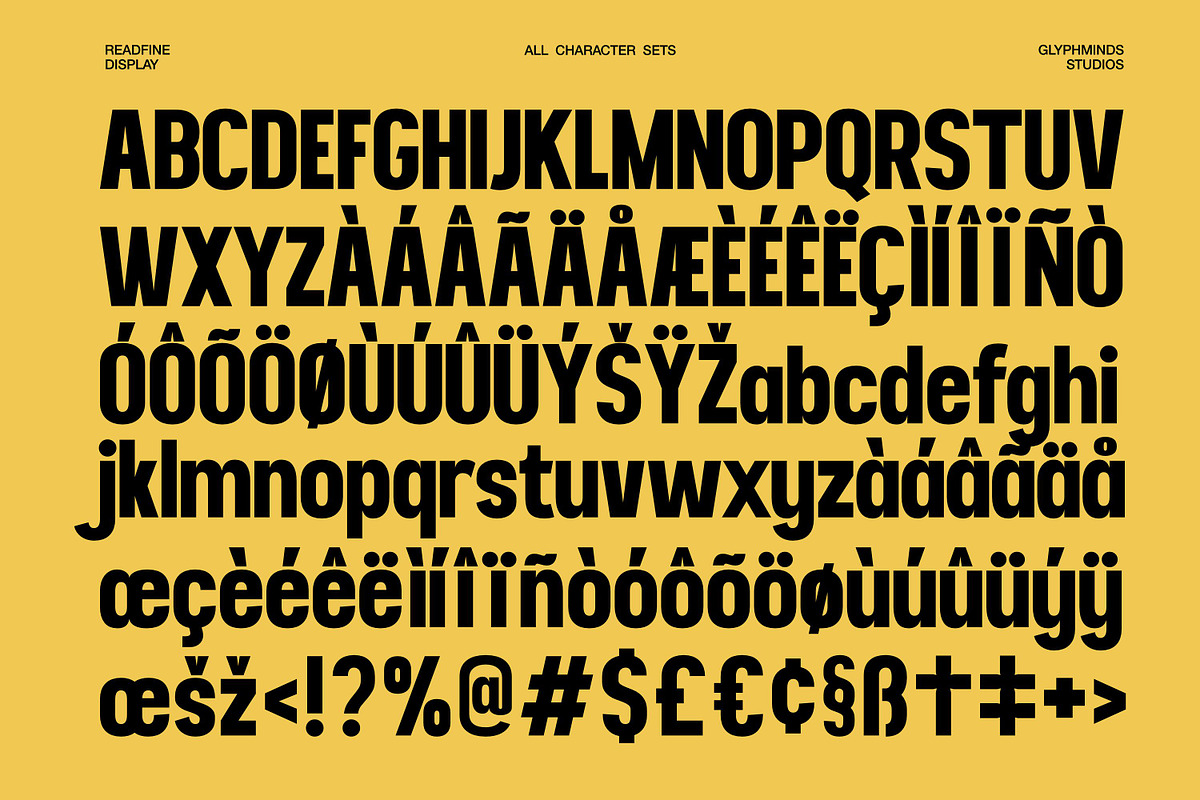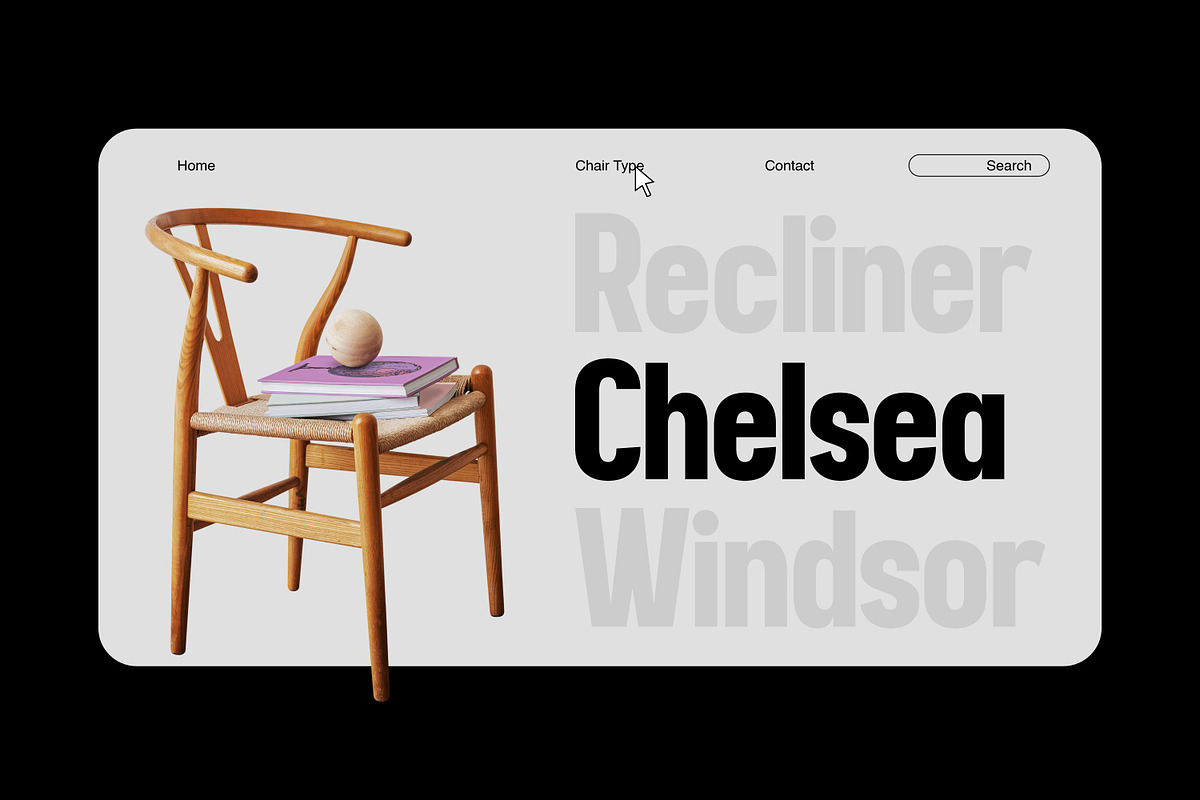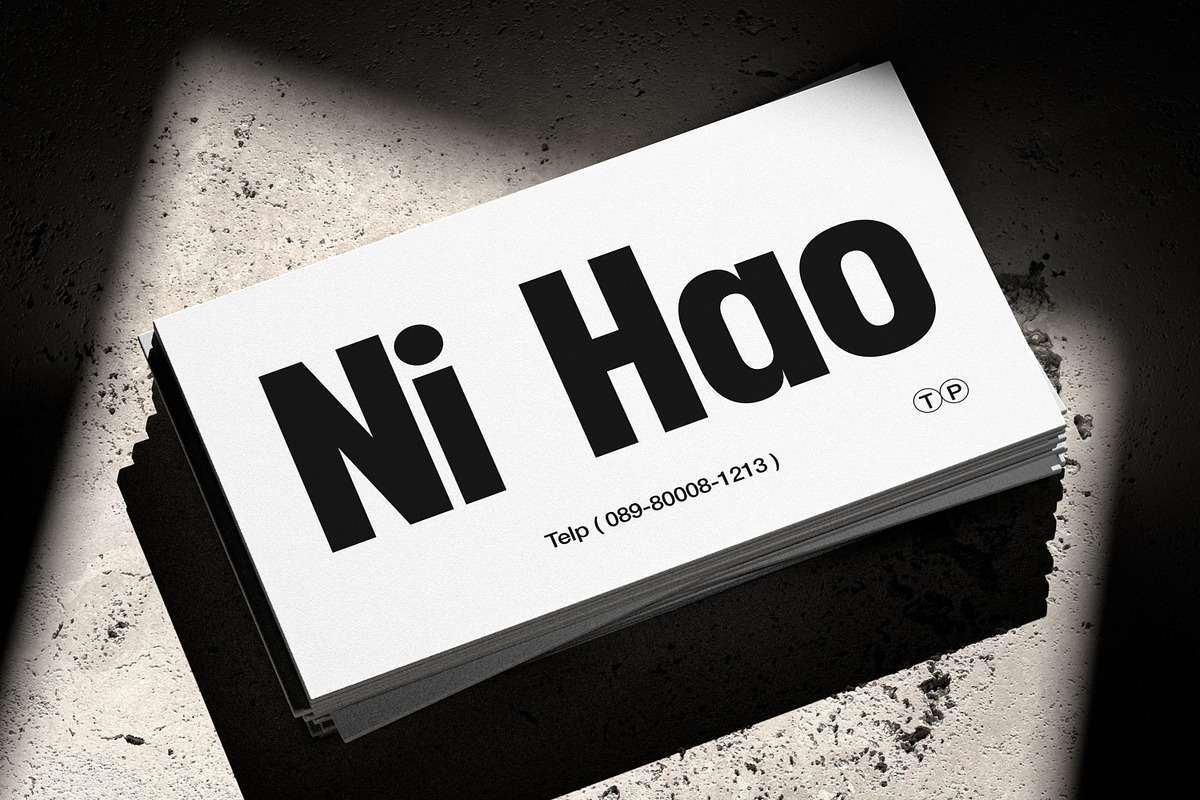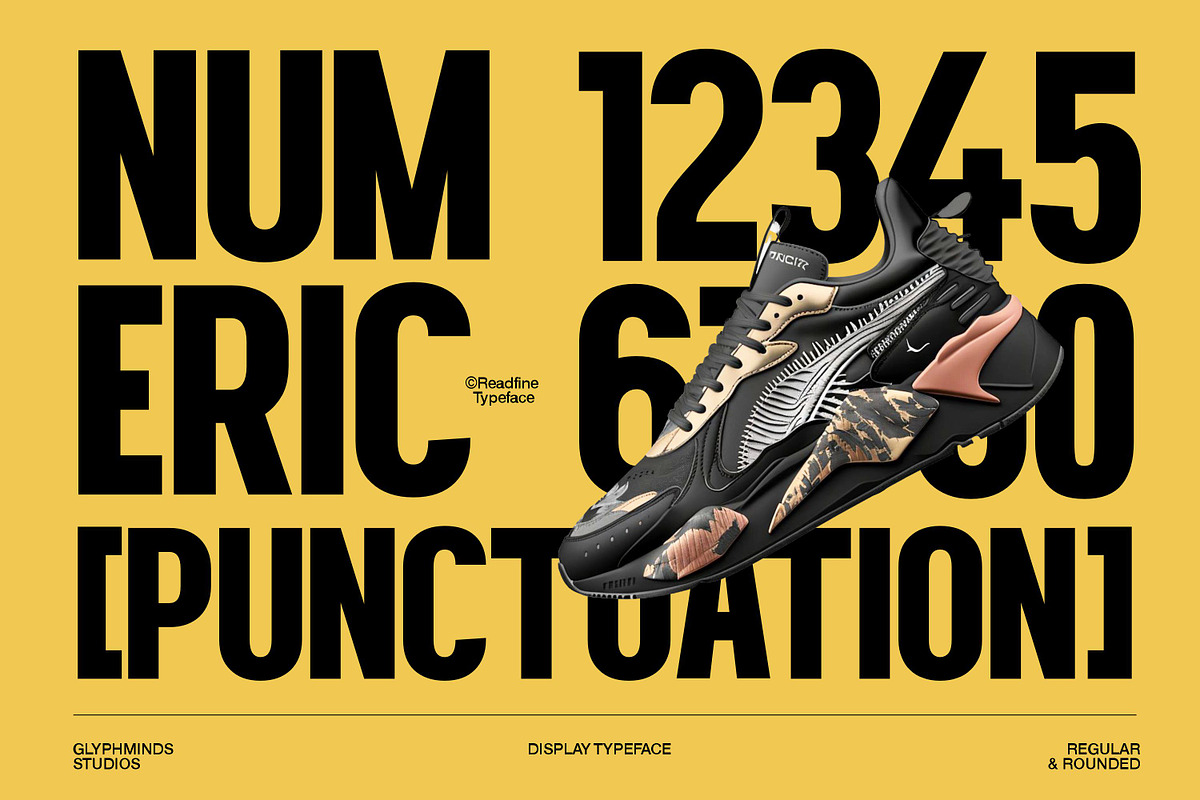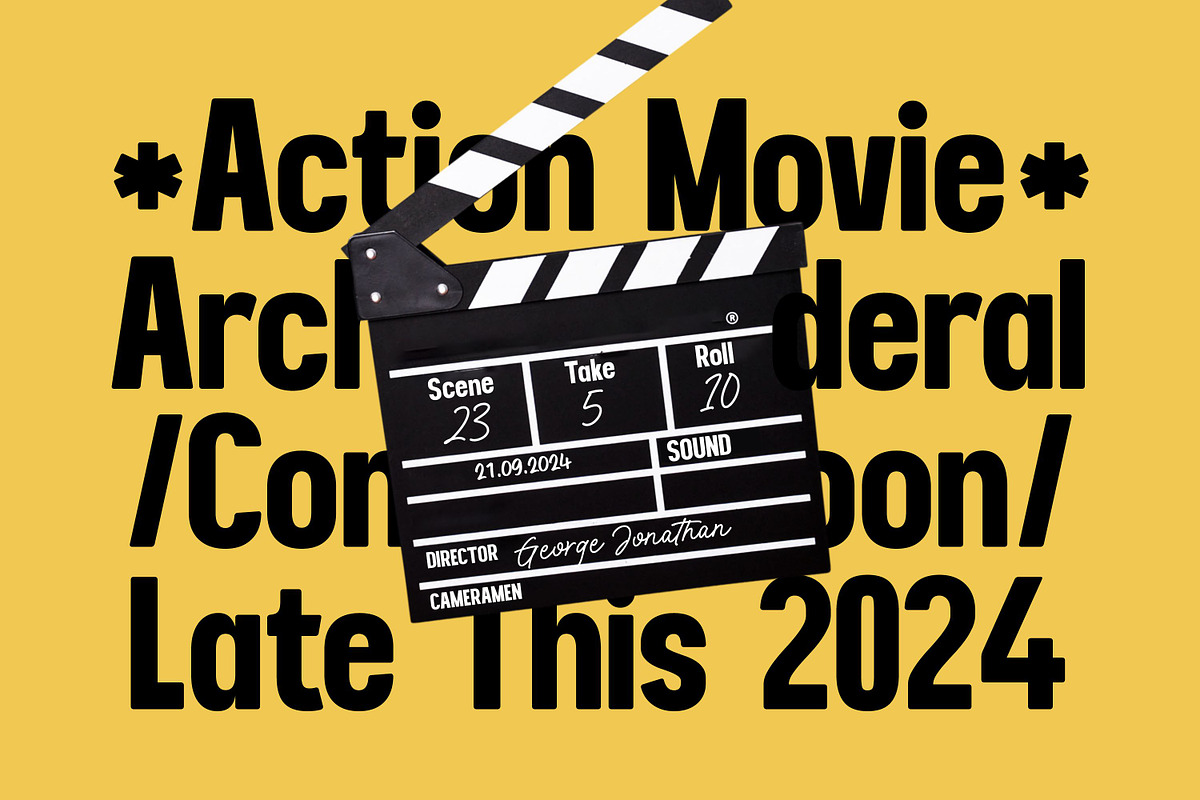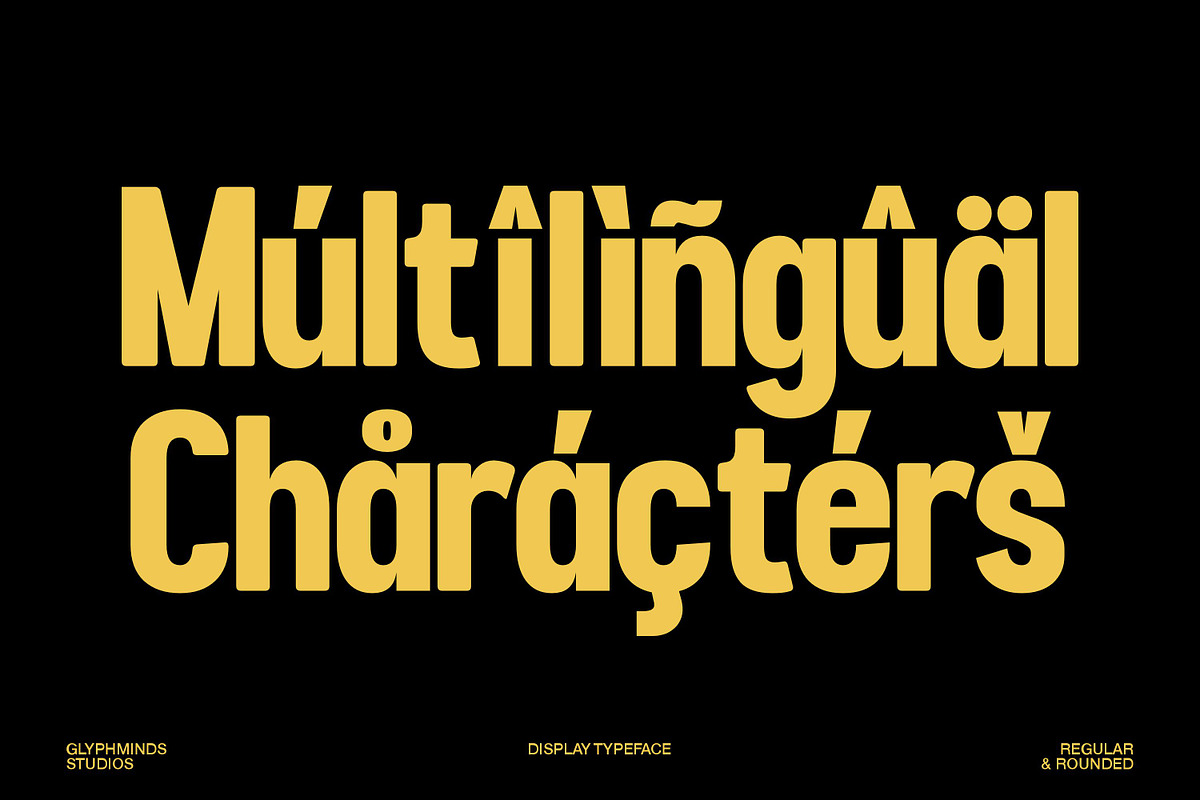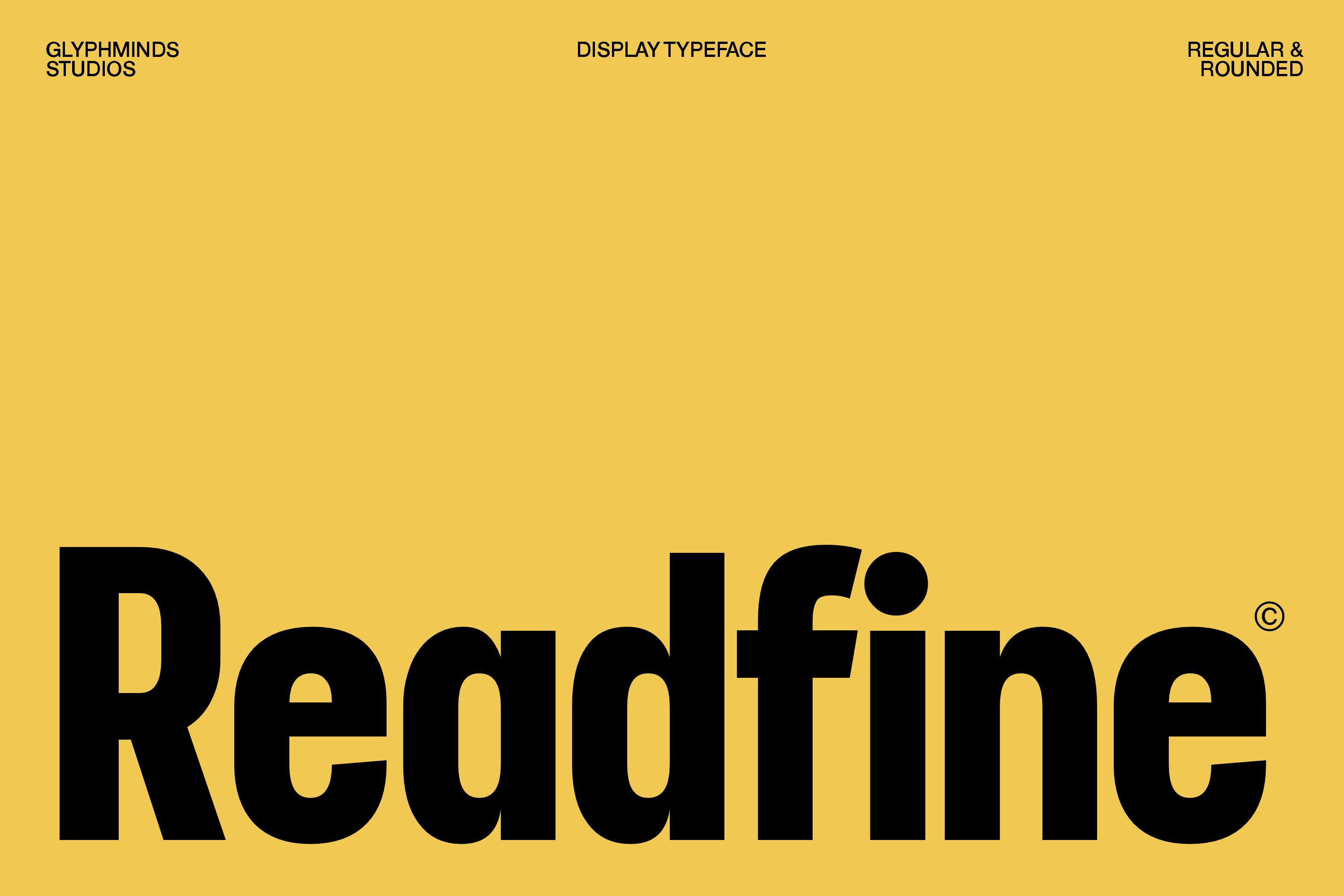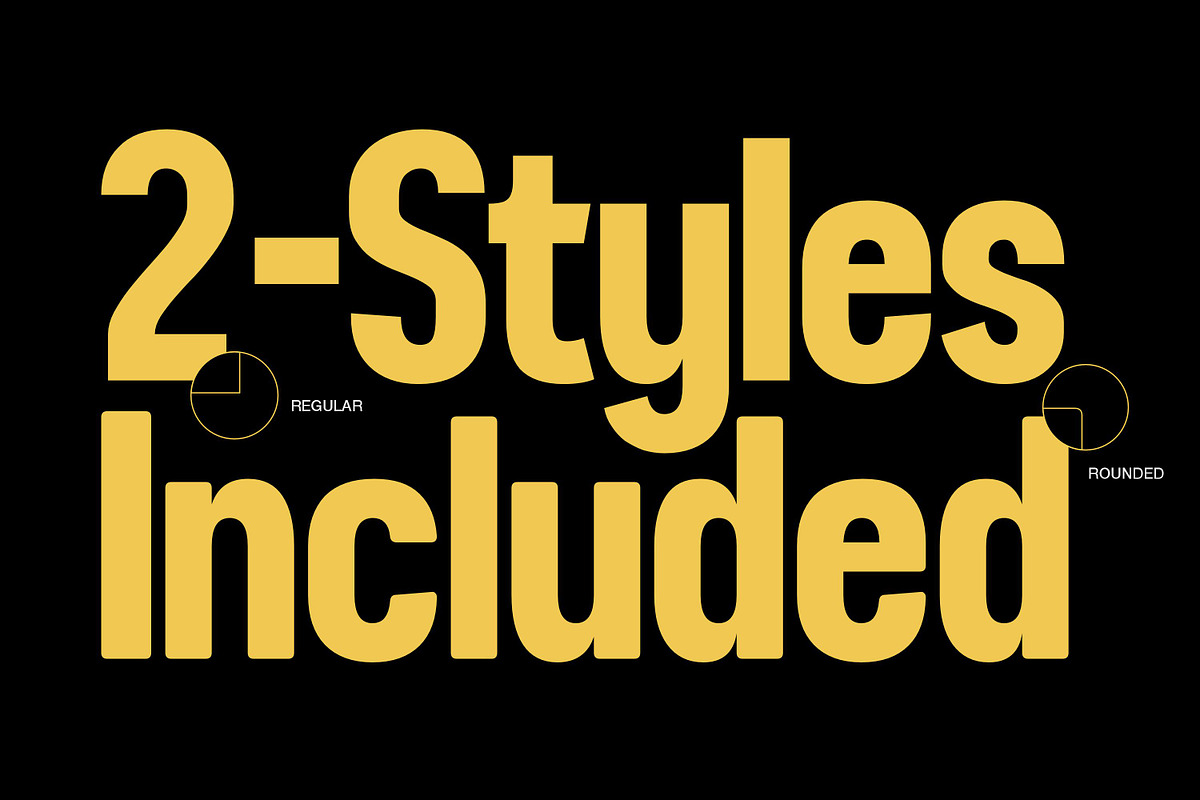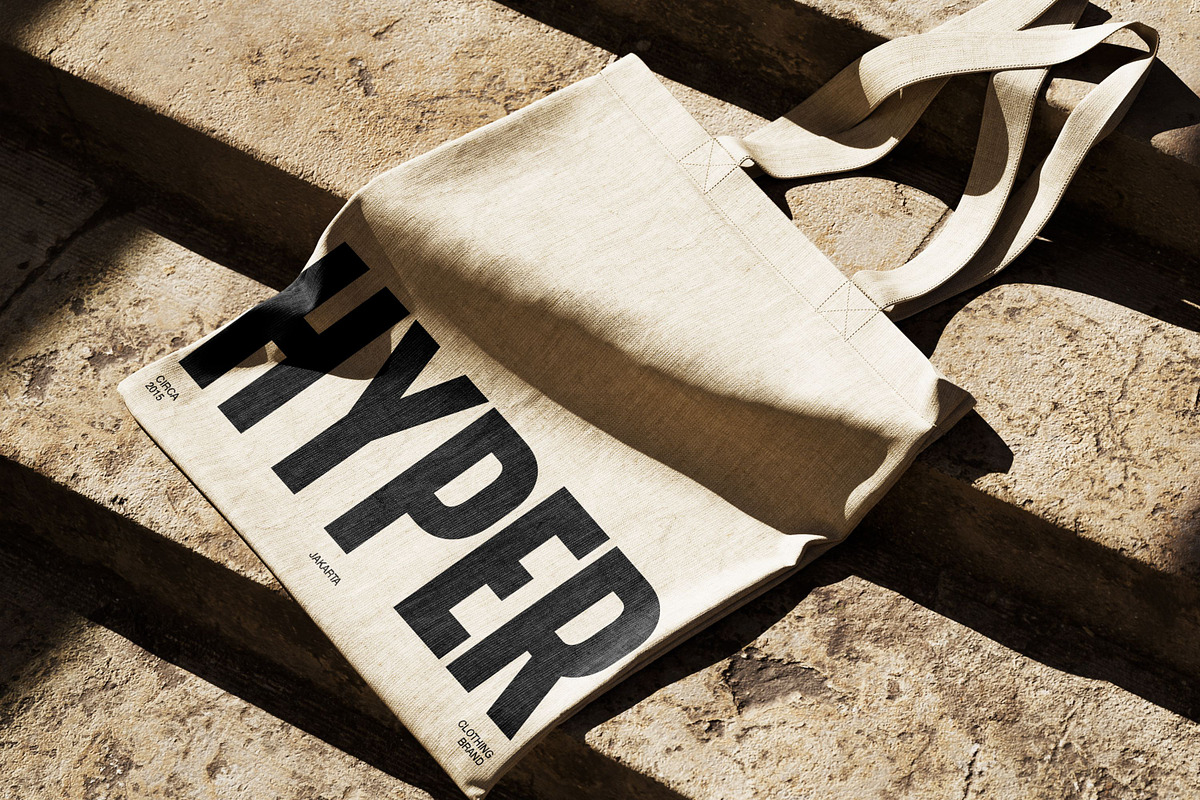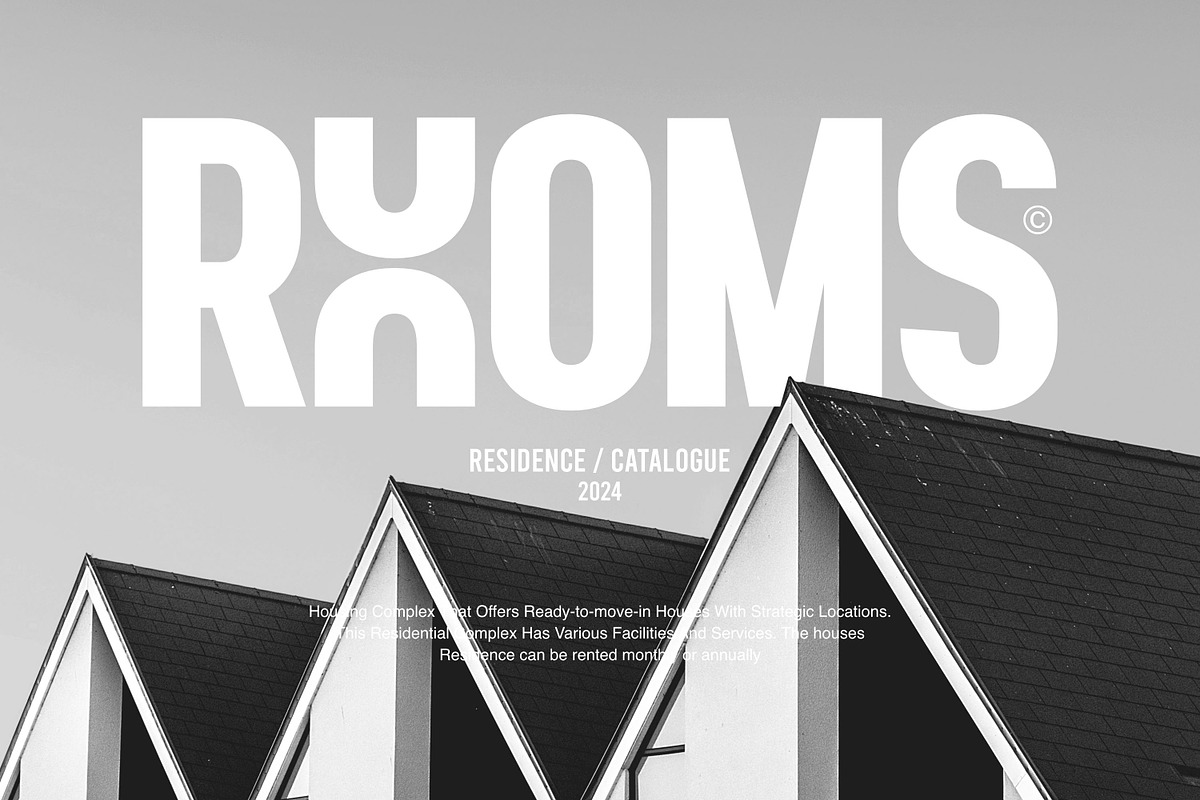
Readfine - Display Typeface
Readfine is a bold and modern display typeface designed to make a statement. With its clean lines and distinct shapes, Readfine brings a touch of sophistication and flair to any project. Perfect for logos, posters, headlines, and branding, this typeface adds a striking visual appeal that stands out in both print and digital media. Available in Regular and Rounded styles, Readfine is versatile and adaptable to various design needs. Elevate your creativity with Readfine – a typeface that redefines boldness and clarity in typography